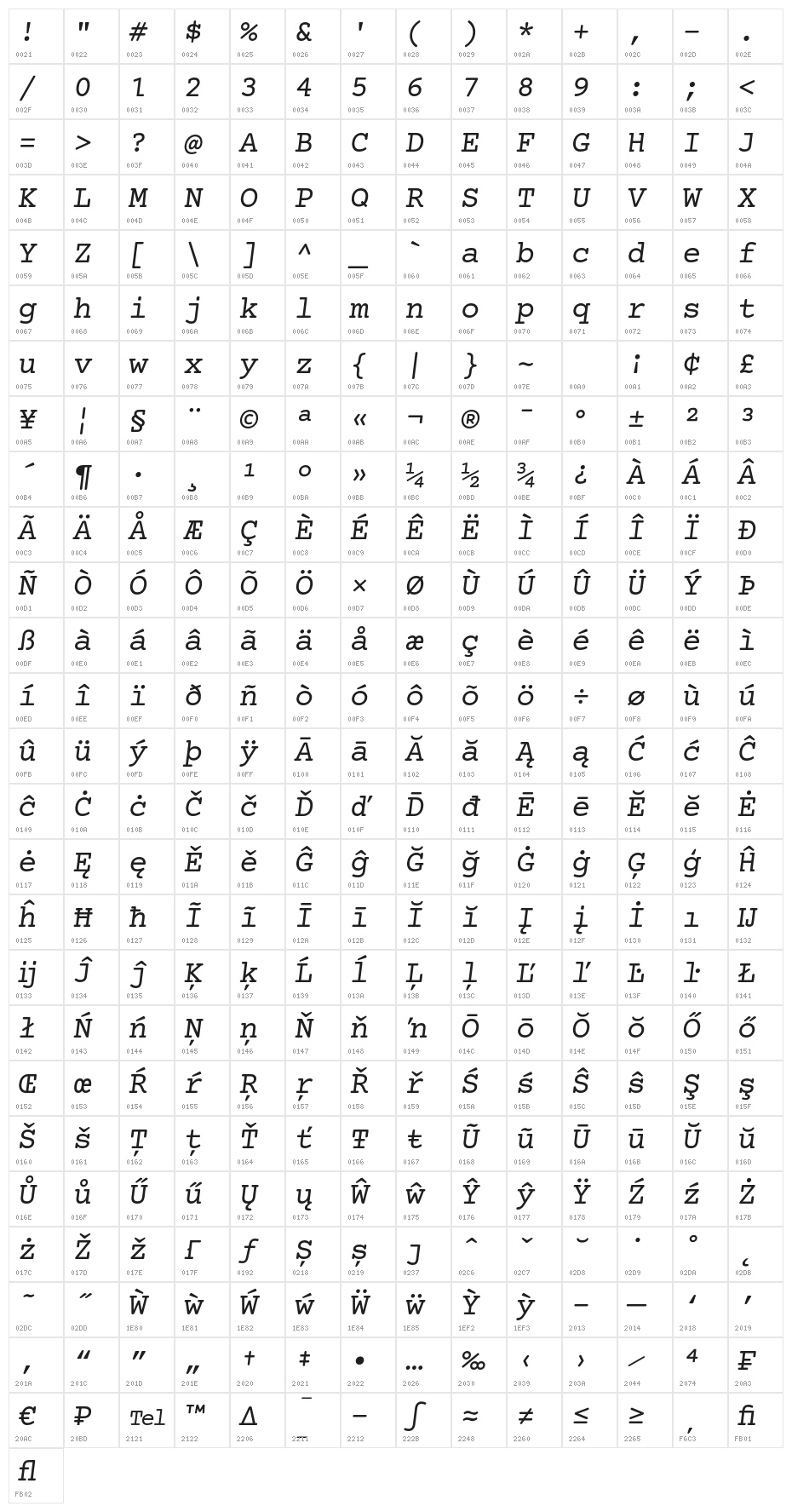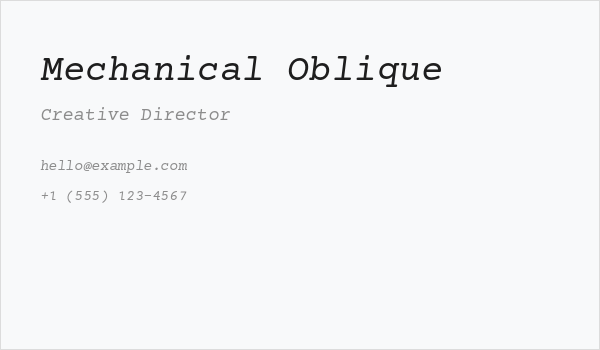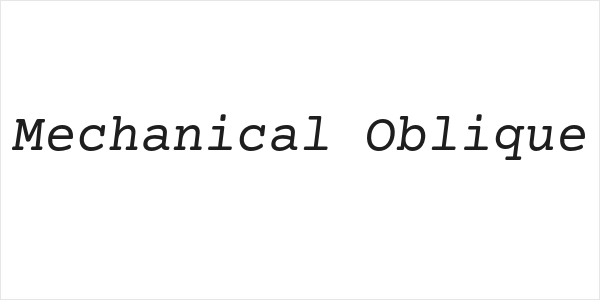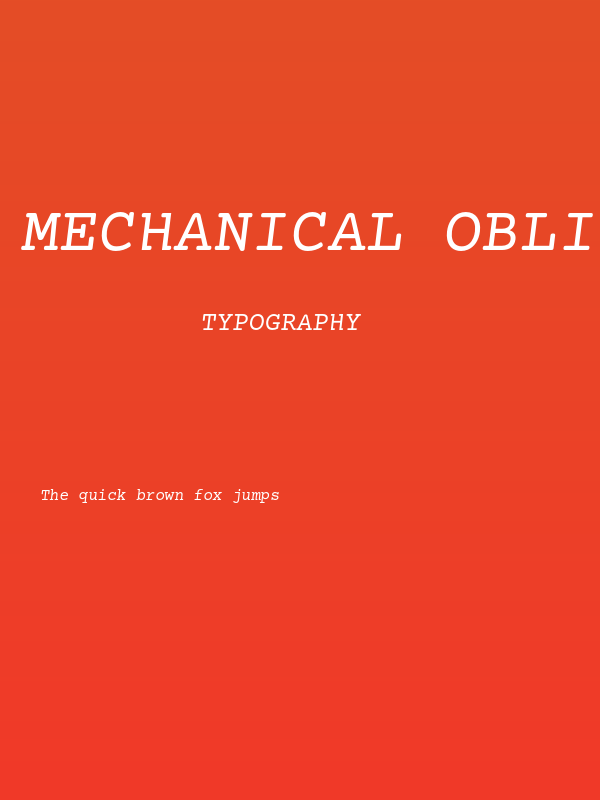
Mechanical Oblique Font
Mechanical Oblique Description
This font features a mechanical, oblique style with a distinct slant, giving it a dynamic and modern appearance. The characters are well-defined with a consistent stroke width, providing a clean and professional look. The uppercase and lowercase letters maintain a uniform slant, enhancing the font's cohesive aesthetic. Numbers and special characters are designed to match the overall style, ensuring versatility across different uses. The font's spacing is balanced, allowing for readability while maintaining its unique character.
| Use Case | Headlines, Logos, Technical documents |
| Proposed Projects | Ideal for technical documents, modern branding, and dynamic advertising materials. |